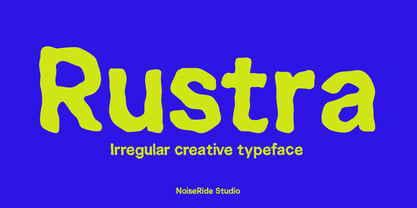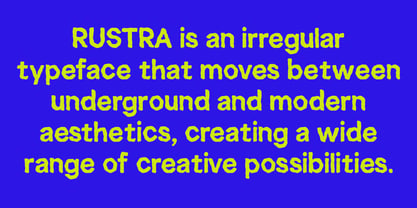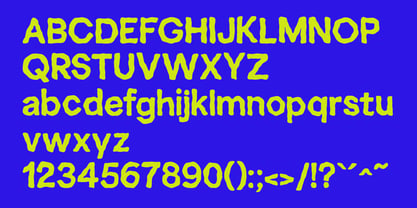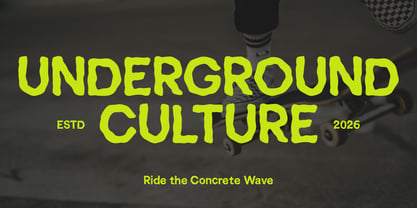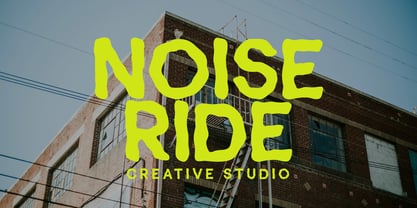
Rustra
by NoiseRide Studio
The Rustra Font Family was designed by Renato Kolberg and published by NoiseRide Studio. Rustra contains 1 styles. More about this family
Rustra is a fusion between street culture and the visual language present in my personal projects and illustrations, reflecting the bold and expressive way I incorporate typography into my art. That’s how the idea was born, to create a typeface that carries a piece of my visual identity while also collaborating with many other creative projects and helping tell new stories in different ways.
Designers: Renato Kolberg
Foundry: NoiseRide Studio